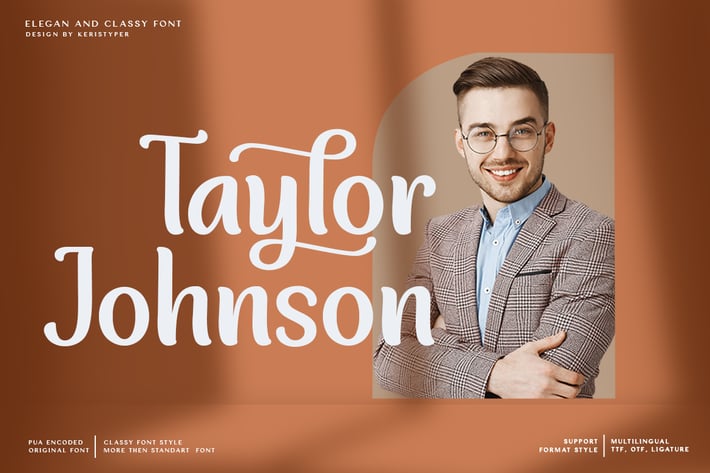
Taylor Johnson Display Font
Introducing Taylor Johnson Display Font is a handmade font style dance and then traces of life to have a Grungy brush and unique calligraphic shape, the writing style is very natural and simple.